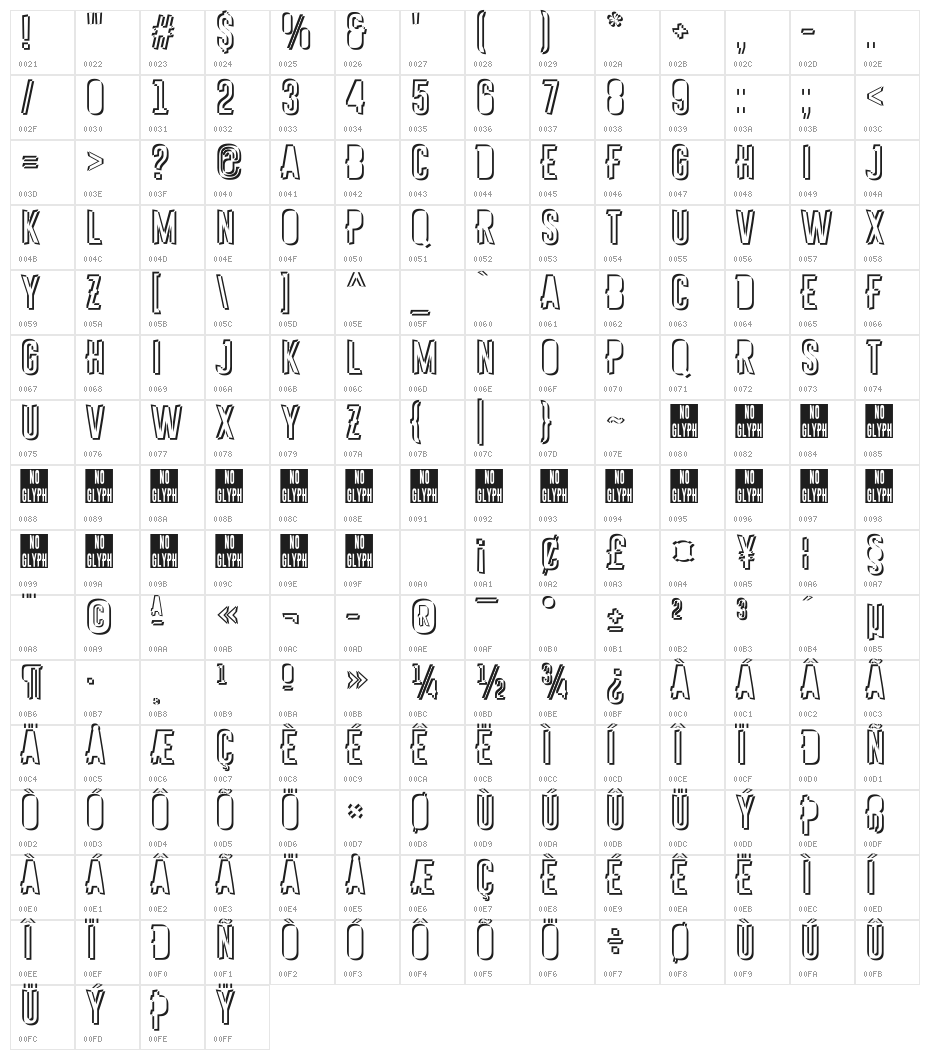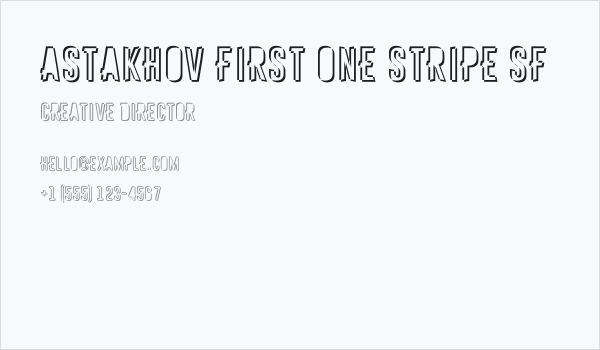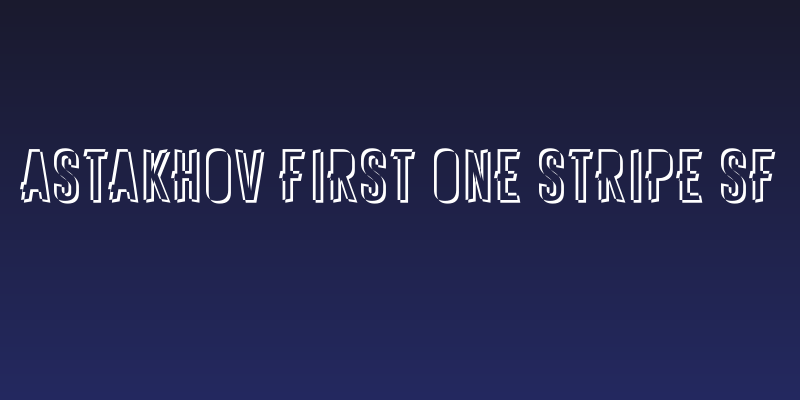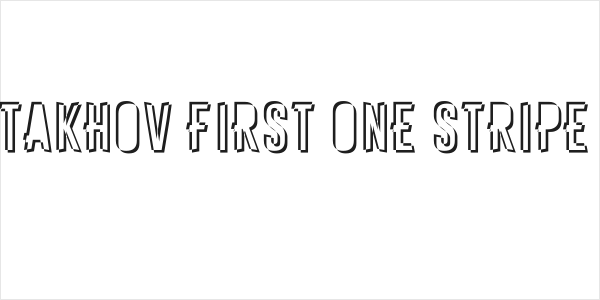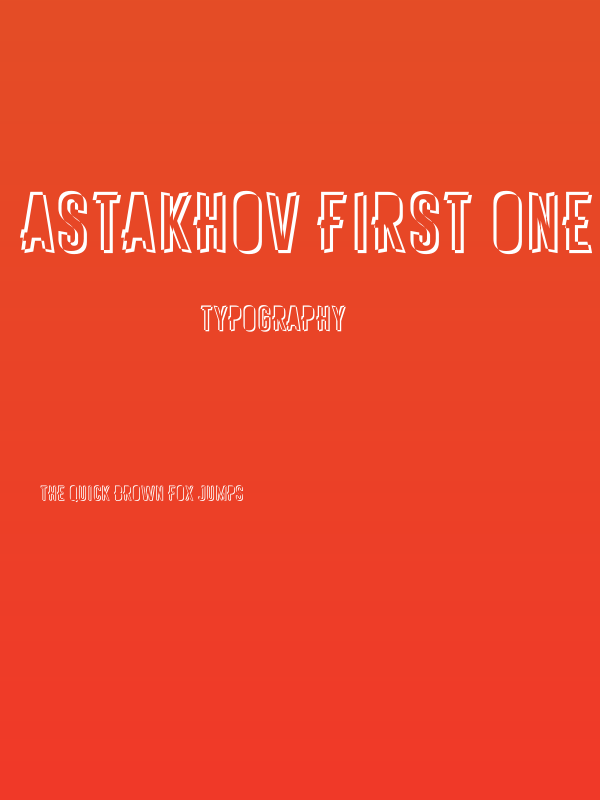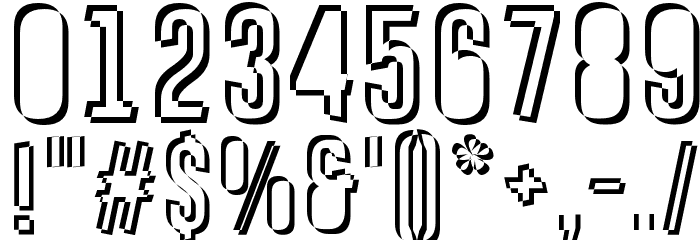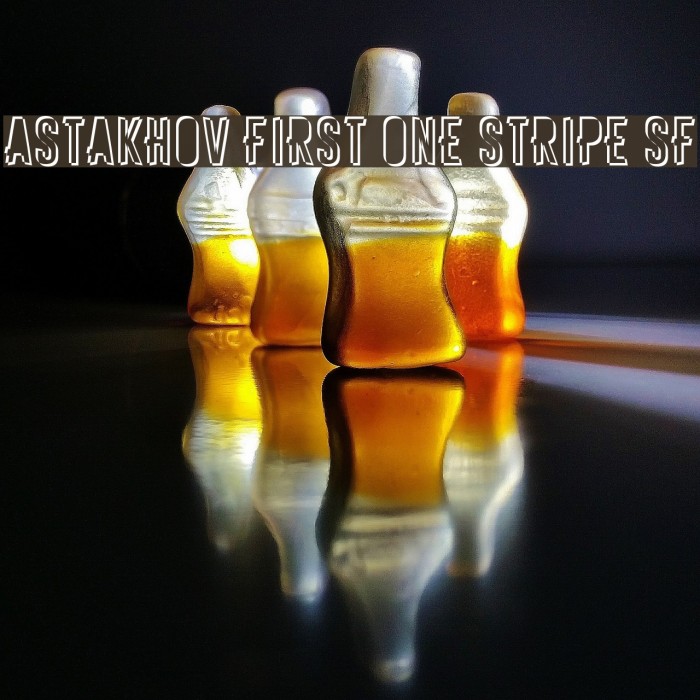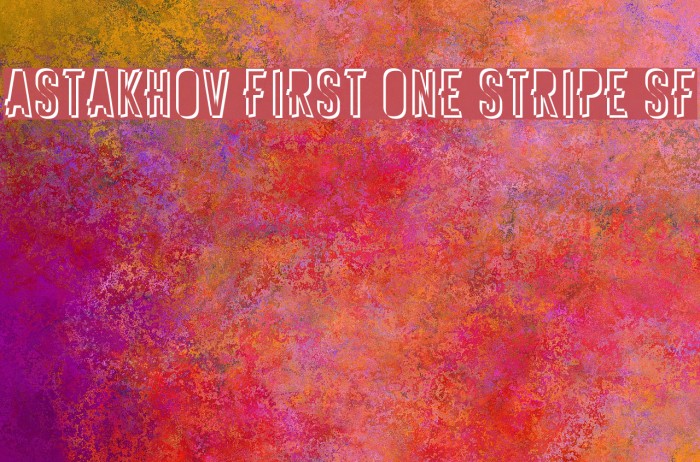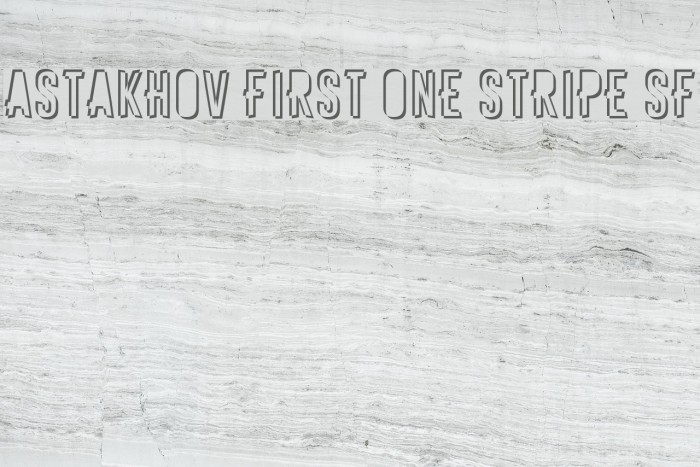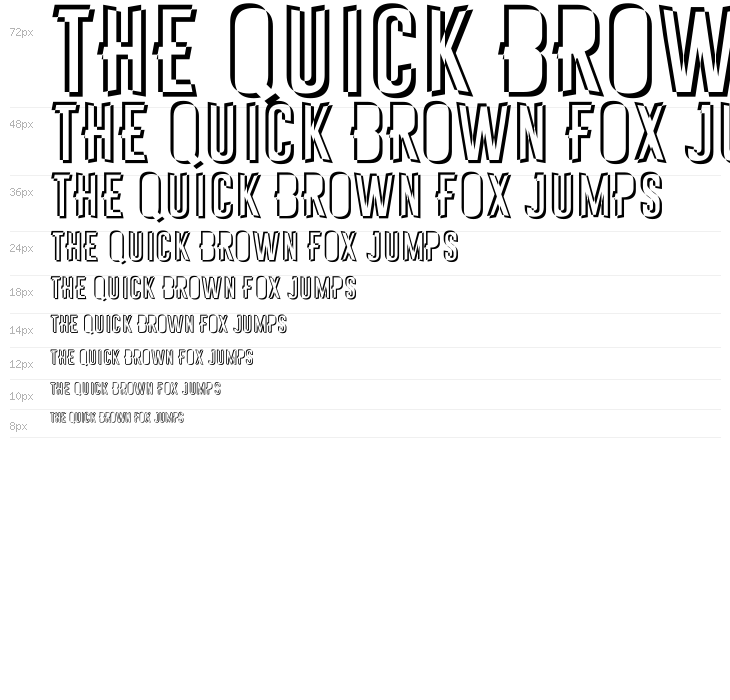
Astakhov First One Stripe SF Font
This font features a bold, decorative style with a unique striped pattern running through each character. The uppercase and lowercase letters are designed with a strong geometric influence, creating a striking visual impact. The numbers and special characters maintain this bold aesthetic, ensuring consistency across all glyphs. The font's design is reminiscent of vintage signage, with a modern twist that adds depth and dimension. Its high contrast and distinct outlines make it stand out, ideal for projects that require a bold statement.